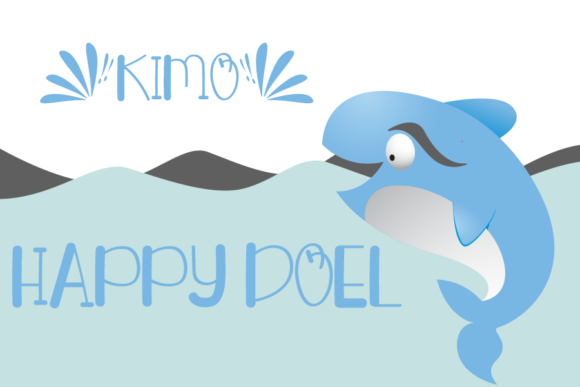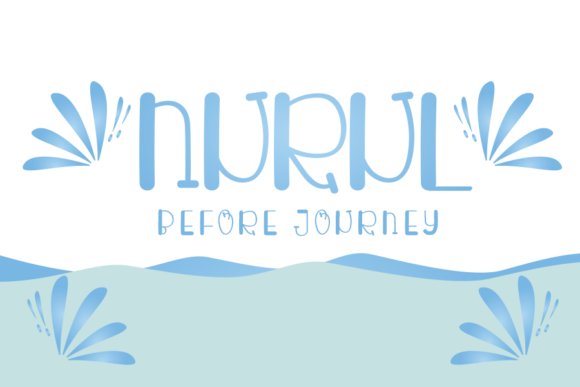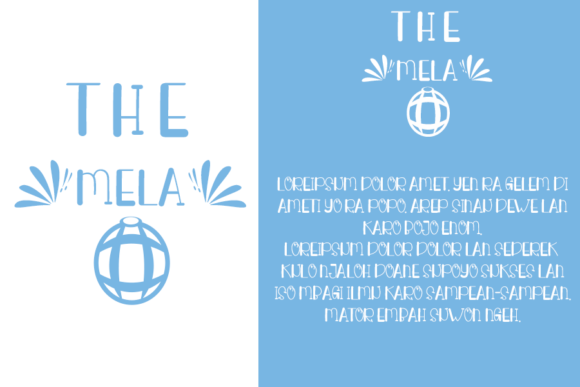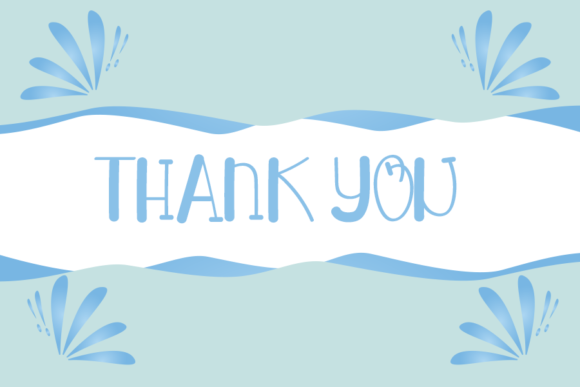
Introduction to Kimo Dolphino Font
Have you ever stared at a blank page, trying to conjure up the perfect words to bring your creative project to life? For designers, this moment can be both exhilarating and daunting. But what if you had the perfect tool to spark your imagination and take your design to the next level?
Enter the Kimo Dolphino Font, a charming display font that embodies the essence of fun, quirkiness, and authenticity. This enchanting font is designed to turn any creative idea into a true standout, making it an invaluable resource for designers looking to add a touch of personality to their work.
Key Features of Kimo Dolphino Font
- Unique, hand-drawn style with a transparent background for seamless integration into designs
- Font size: 1,000 glyphs, covering a wide range of languages and characters
- Designed for versatility, making it perfect for use in various creative projects, from branding to editorial content
Honest Review: Kimo Dolphino Font
As a designer, I’m always on the lookout for high-quality design resources to elevate my creative projects. Recently, I had the chance to try out the Kimo Dolphino Font, and here’s my honest review.
- ✨ The font’s playful and whimsical feel is perfect for projects that require a touch of fun and personality.
- ✨ The font is highly customizable, allowing you to adjust the size, color, and style to suit your design needs.
- ⚠️ The font may not be suitable for formal or professional projects, as it has a more casual feel.
Overall, I’m impressed with the Kimo Dolphino Font’s potential and versatility. While it may not be suitable for every project, it’s a great addition to any designer’s toolkit. With a little creativity, you can use this font to add some personality and flair to your designs.
How to Use Kimo Dolphino Font
The Kimo Dolphino Font is a high-quality design resource ideal for creative projects. It offers a unique and playful style that can add a touch of personality to your designs.
Tips for Getting the Most Out of Kimo Dolphino Font
To get the most out of the Kimo Dolphino Font, consider the following tips:
Experiment with different font sizes and styles to create visual interest.
Combine the font with other design elements, such as graphics and images, to create a unique and eye-catching design.
The Kimo Dolphino Font is ideal for a variety of creative projects, including:
Logos and branding materials
Graphics and illustrations
Presentations and documents